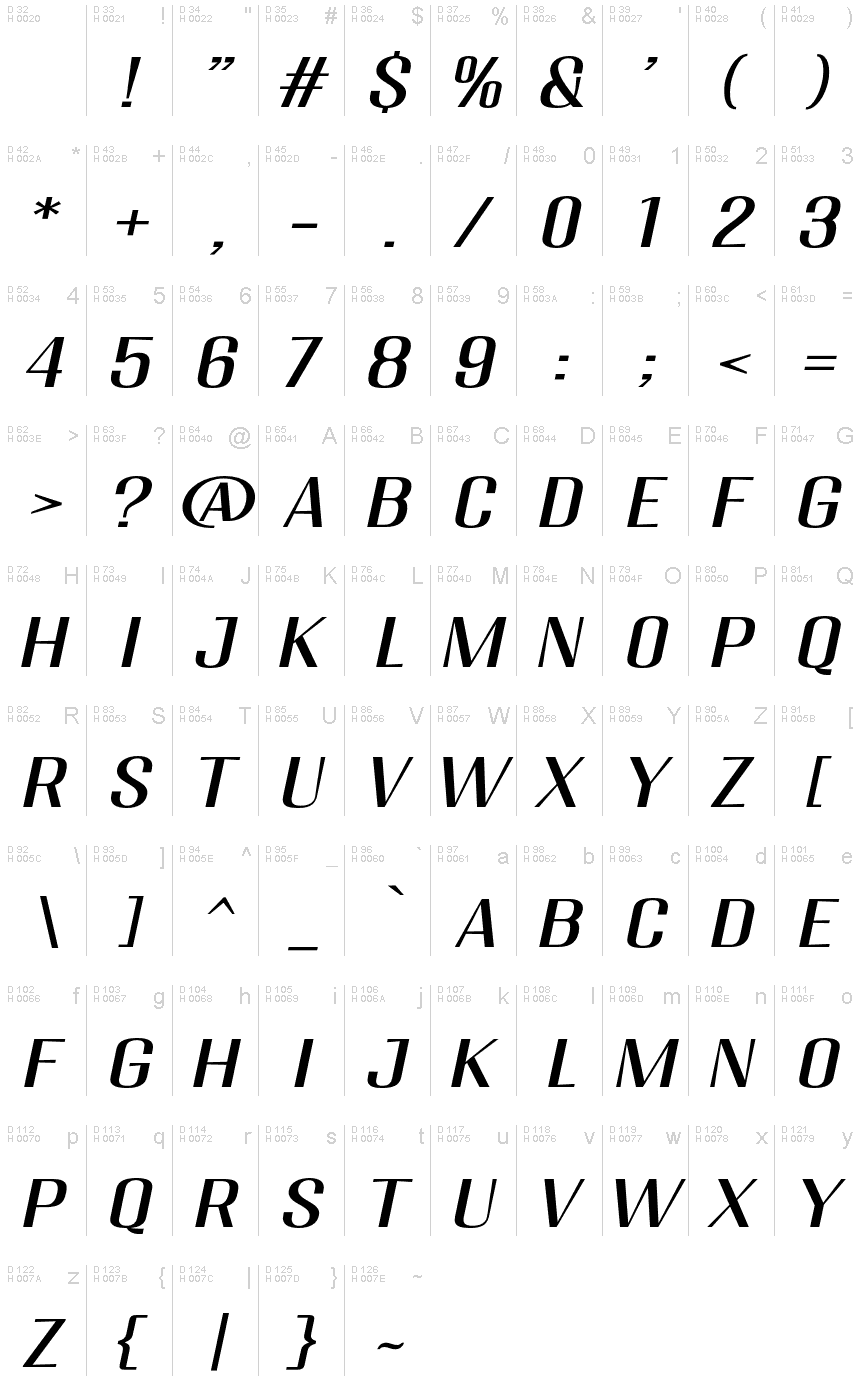
Migha-ExpandedCNTRSlant
Migha Expanded CNTR Slant is a stunning semi-light sans serif font from the talented Seniors Studio. With its expanded width and unique slanted design, Migha is perfect for creating eye-catching headlines, logos, and branding materials that demand attention. Use it to add a touch of sophistication and modernity to your projects, whether you're designing websites, packaging, or advertising campaigns. With its versatile style and easy readability, Migha Expanded CNTR Slant is sure to become a go-to font for designers looking to make an impact. Try it out for yourself and see how this bold typeface can elevate your designs!